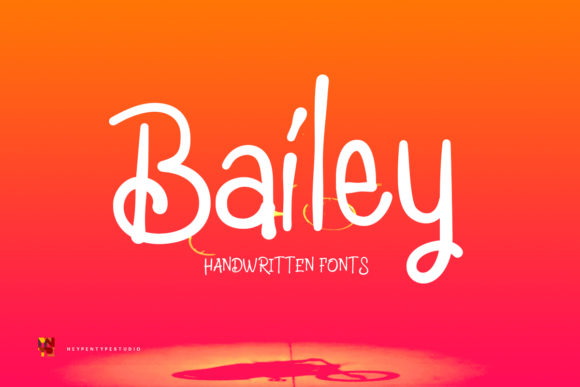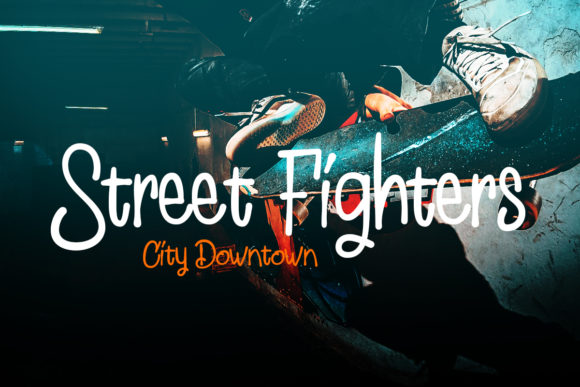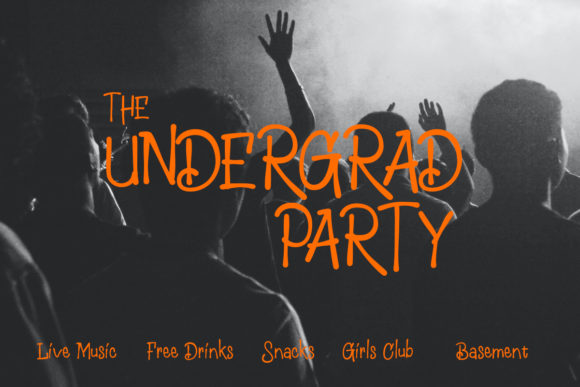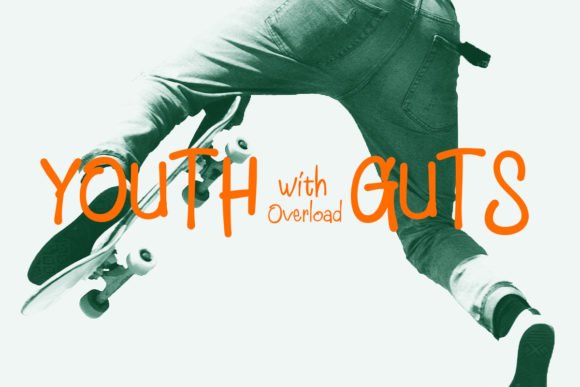
Bailey Font
About Bailey Font
Bailey is a casual script font with an incredibly friendly and youthful vibe. This versatile script font has a wide spectrum of applications ranging from greeting cards to headlines and is guaranteed to add a romantic feel to your next project.